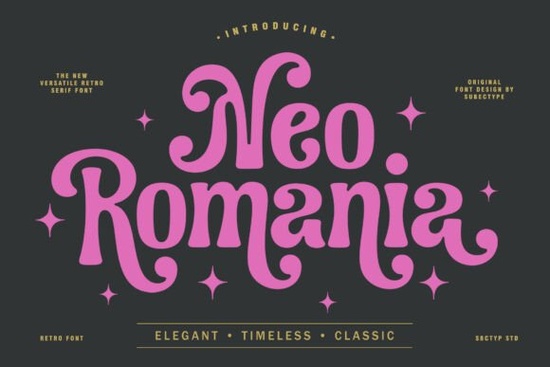
If you're looking for a serif font that feels both classic and fresh, Neo Romania Font is worth exploring. It’s designed for creators who want a touch of vintage elegance without sacrificing modern readability. Whether you’re working on branding, packaging, or editorial layouts, this font brings a refined personality to your projects soft curves, bold strokes, and subtle ornamental details give it character while keeping things clean and balanced.
What makes Neo Romania stand out from other serif fonts?
While many serif fonts lean either into strict traditional styles or bold modern designs, Neo Romania finds a sweet spot in between. Its letterforms are inspired by retro aesthetics but feel entirely at home in today’s design landscape. The gentle curves and distinctive flourishes add visual interest, especially in display settings like logos, posters, or book covers.
You’ll notice how the stroke contrast gives depth thicker lines where the weight increases, thinner ones where it tapers. This balance helps maintain clarity even at smaller sizes, which is great if you’re designing print materials or digital graphics that need to scale well.
Perfect for creative projects with a timeless feel
Designers often reach for serif fonts when they want to convey professionalism, heritage, or artistry. With Neo Romania, you get all that but with a playful edge. It works beautifully for:
- Brand identities that want to feel established yet approachable
- Packaging for artisanal goods, cosmetics, or food brands
- Editorial layouts in magazines, zines, or newsletters
- Logos and stationery sets with a nostalgic vibe
- Event invitations, wedding cards, or greeting cards
It’s not just about looks it’s about mood. The font subtly evokes a sense of history and craftsmanship, making your work feel more intentional.
How does it compare to similar fonts in the same category?
If you’ve explored other serif fonts, you might have come across titles like Olde Victorian, Longhorn Western, or The Altar Sight. Each has its own unique tone: Olde Victorian leans heavily into Victorian-era drama, Longhorn Western channels rustic Americana, and The Altar Sight adds a dramatic, almost architectural presence.
Neo Romania sits somewhere in the middle more versatile than those options, with less formality than some classics and less grit than others. It’s ideal if you want something elegant but not overly ornate, stylish but still readable at a glance.
Why designers choose Neo Romania for their workflow
One of the practical advantages is how easily it integrates into existing projects. It supports multiple languages, includes a wide range of weights, and works well across both digital and print formats. You can use it for headlines, body text (in limited cases), or as a standout feature in layouts.
Final thoughts: Is Neo Romania right for your next project?
If you’re drawn to fonts that feel authentic, memorable, and easy to use, this one deserves a spot in your library. It’s not flashy, but it’s thoughtful exactly the kind of font that lets your design do the talking.
Before you commit, try it in a mockup. See how it pairs with your color scheme, layout style, and brand voice. Chances are, once you see it in action, you’ll understand why so many creatives keep coming back to it.
Quick checklist before using Neo Romania:
- Test the font at different sizes especially for print
- Check how it looks alongside your chosen secondary font
- Ensure it aligns with your brand’s tone (elegant? playful? serious?)
Once you’ve tried it, you might find yourself reaching for it again and again especially when you need that perfect blend of old-school charm and modern clarity.